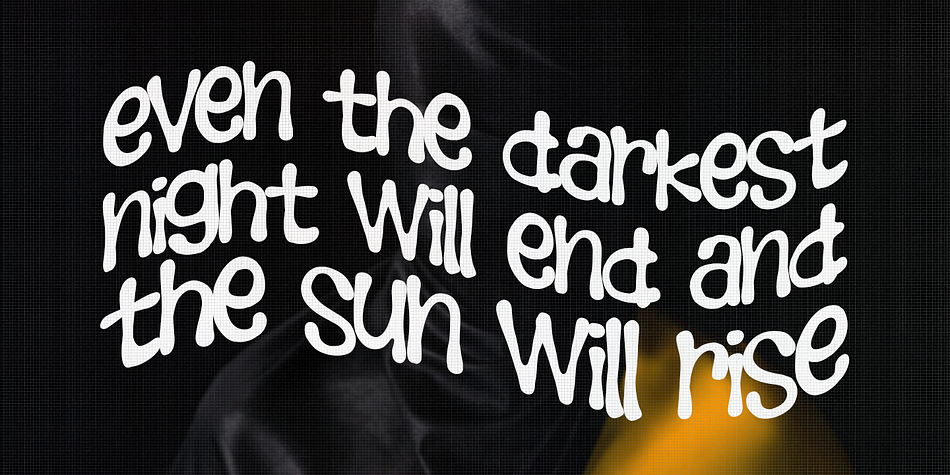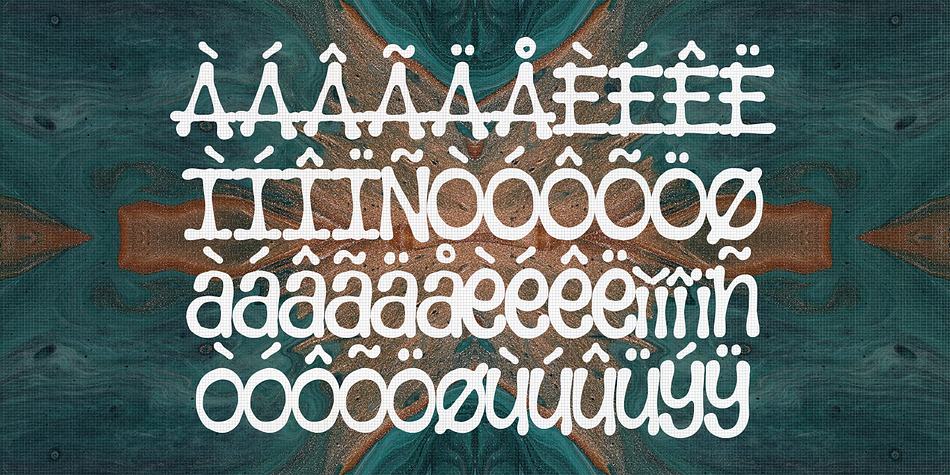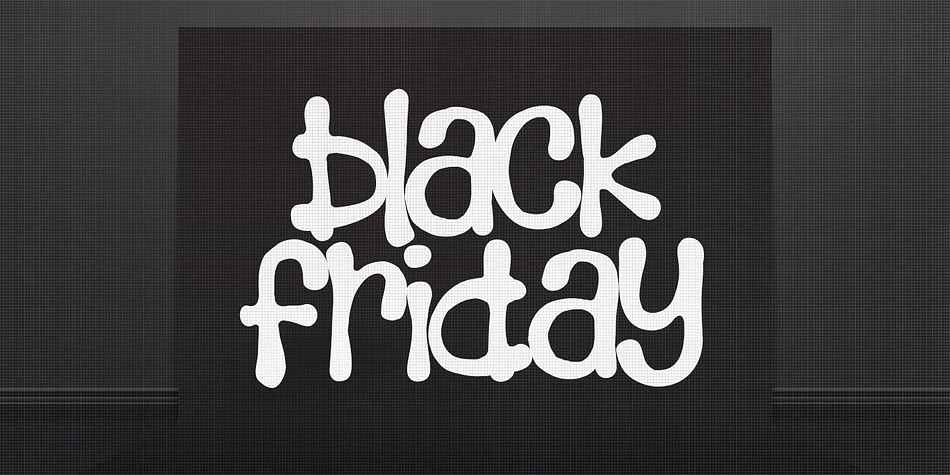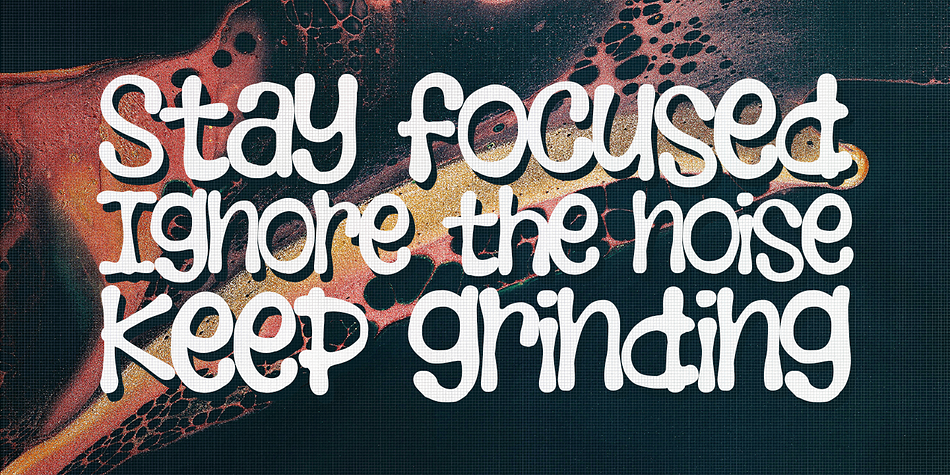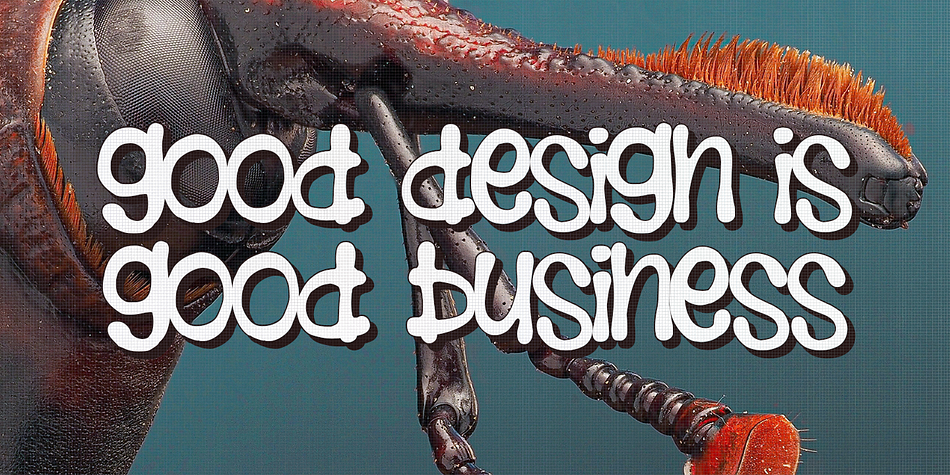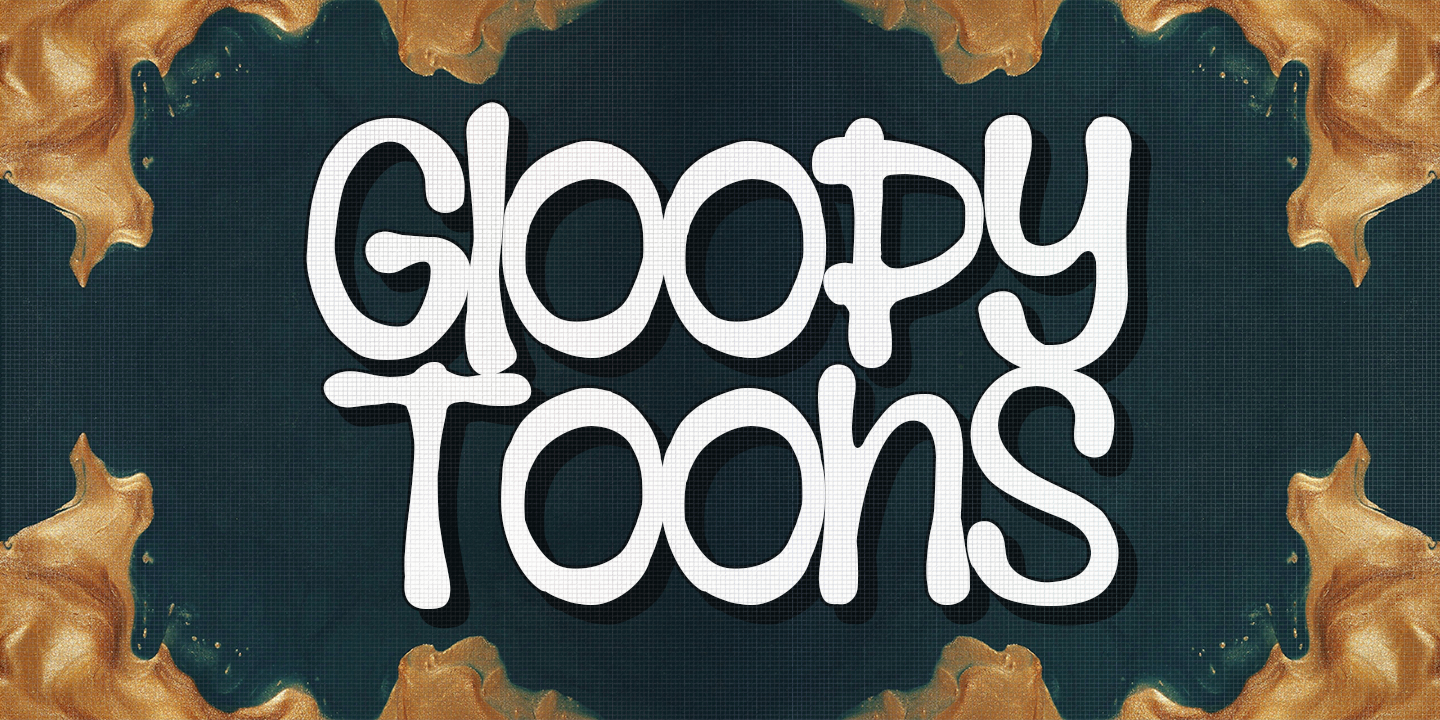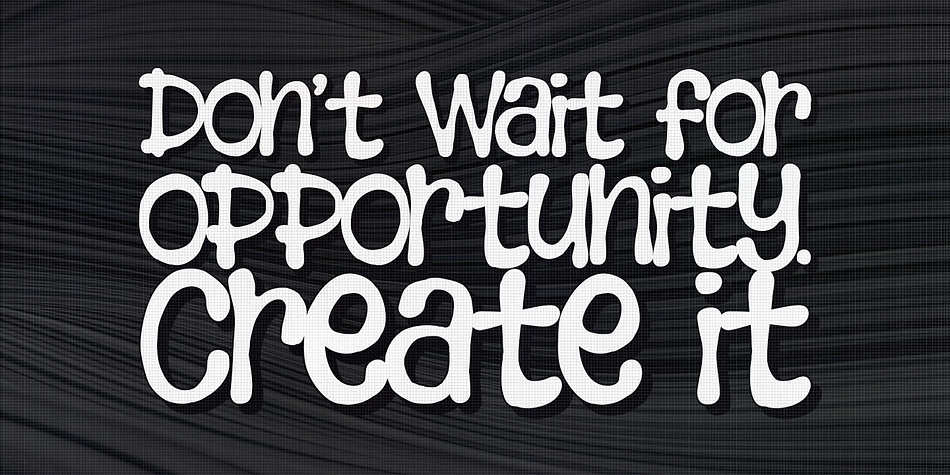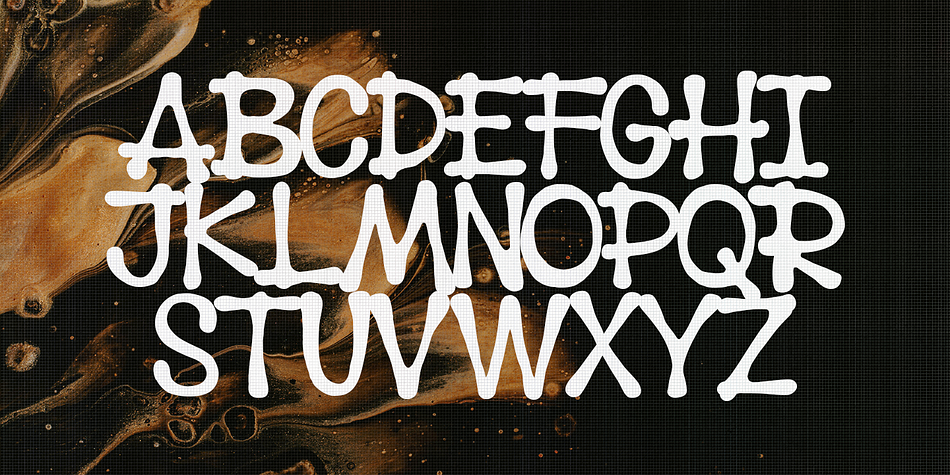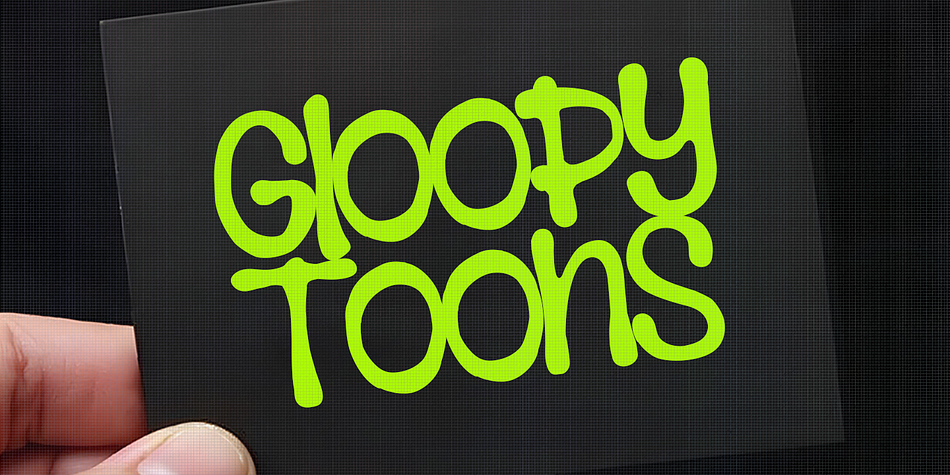
Gloopy Toons
Gloopy Toons is a hand drawn font family. This typeface has two styles and was published by Fargun Studio.
Dive into creativity with this unique drip water style font, where every letter looks like it’s melting or freshly dipped in liquid! Perfect for summer themes, beverage branding, splashy designs, pool party invites, or anything that needs a cool, refreshing twist. The fluid, organic shapes give your text a dynamic and eye-catching appearance—like it’s alive and in motion.
Whether you’re designing posters, logos, or digital artwork, this font makes a splash and turns heads with its wet, glossy aesthetic. Add some chill to your visuals!